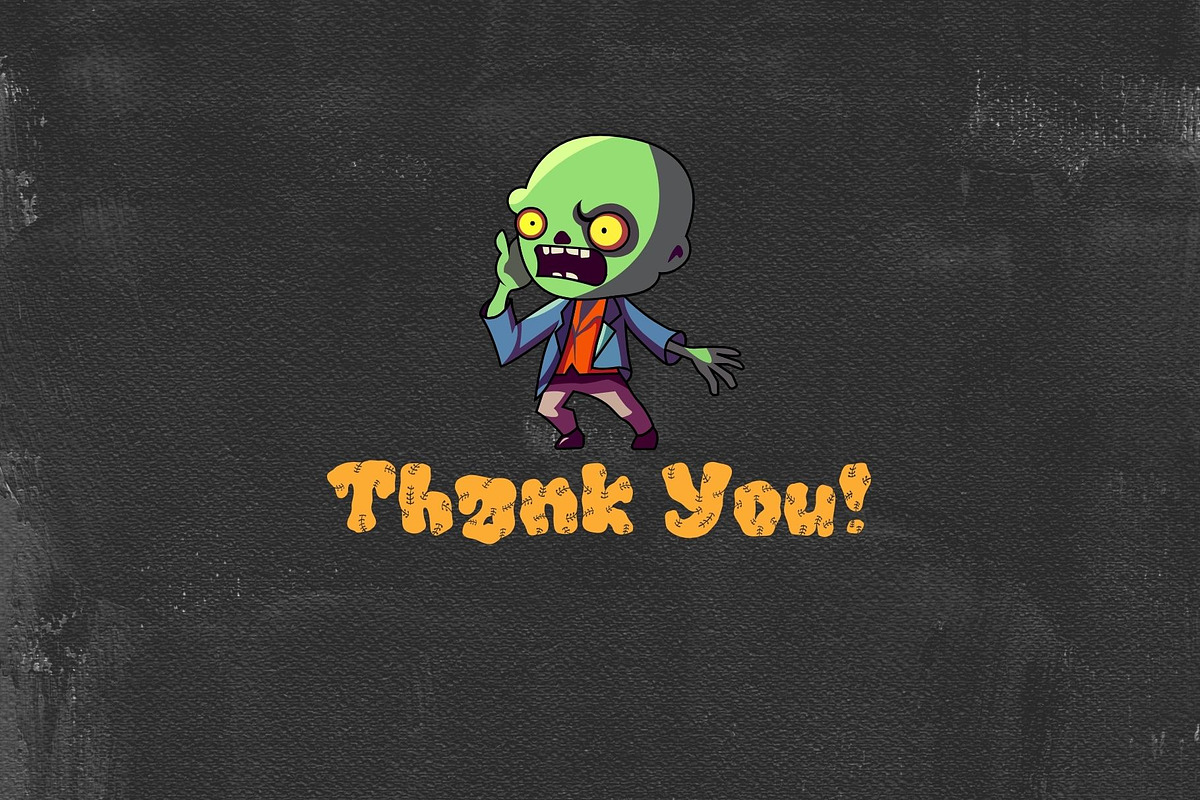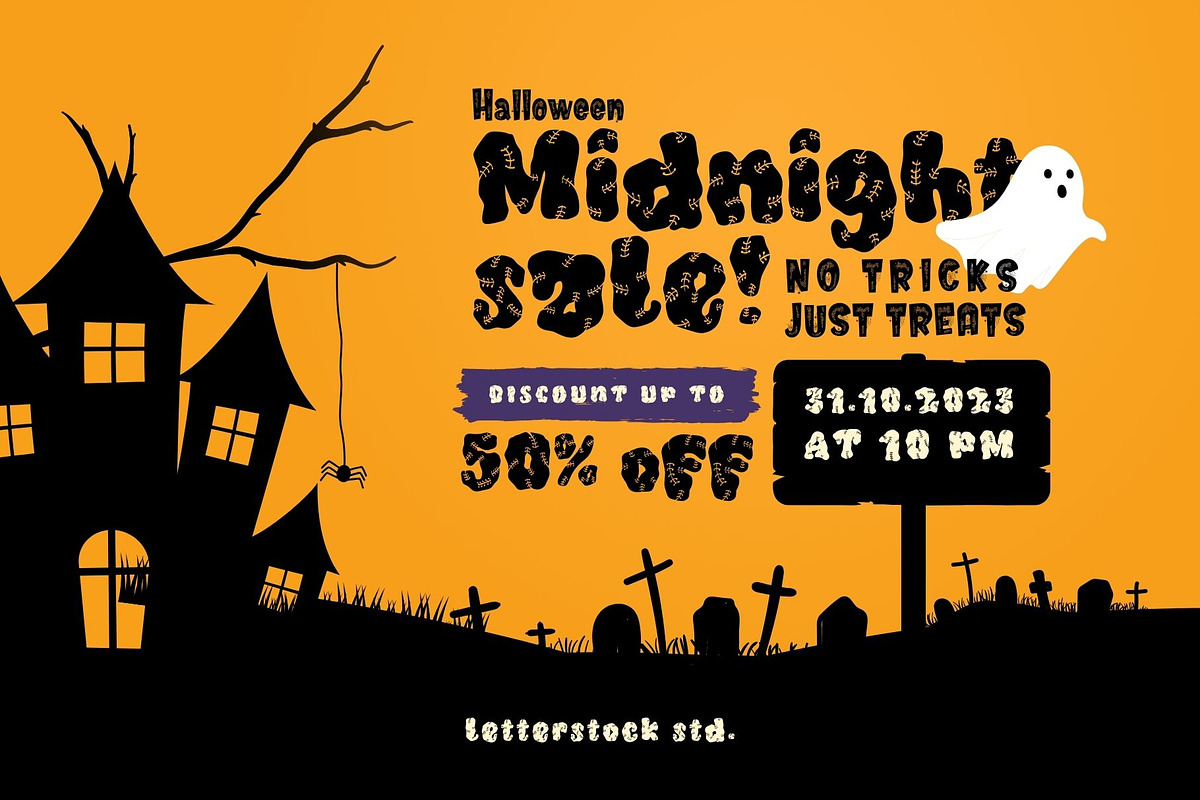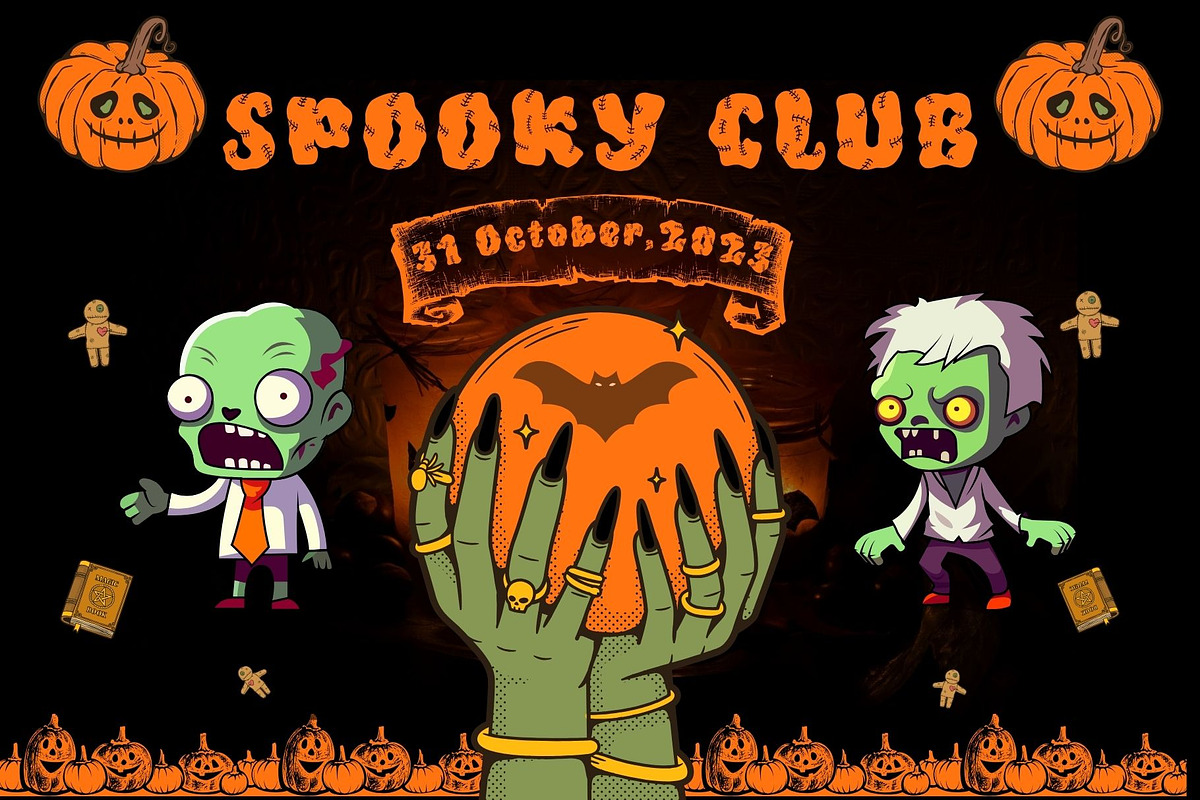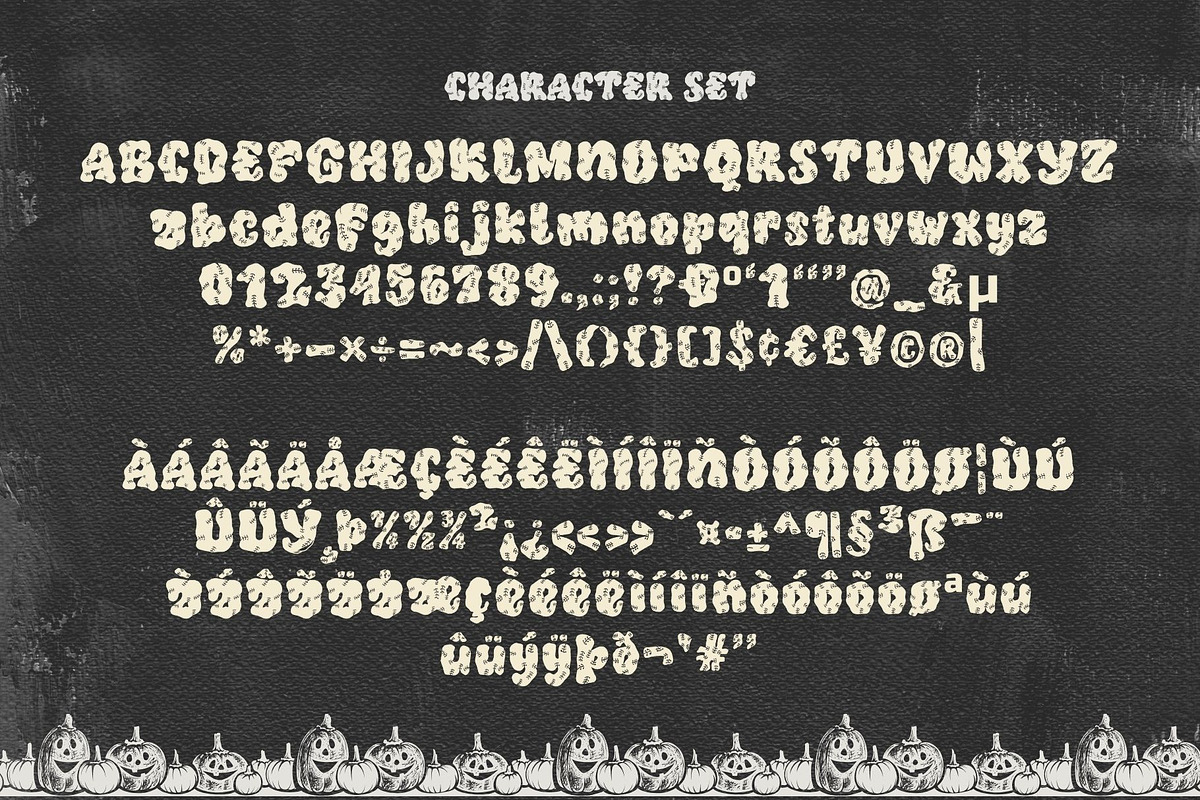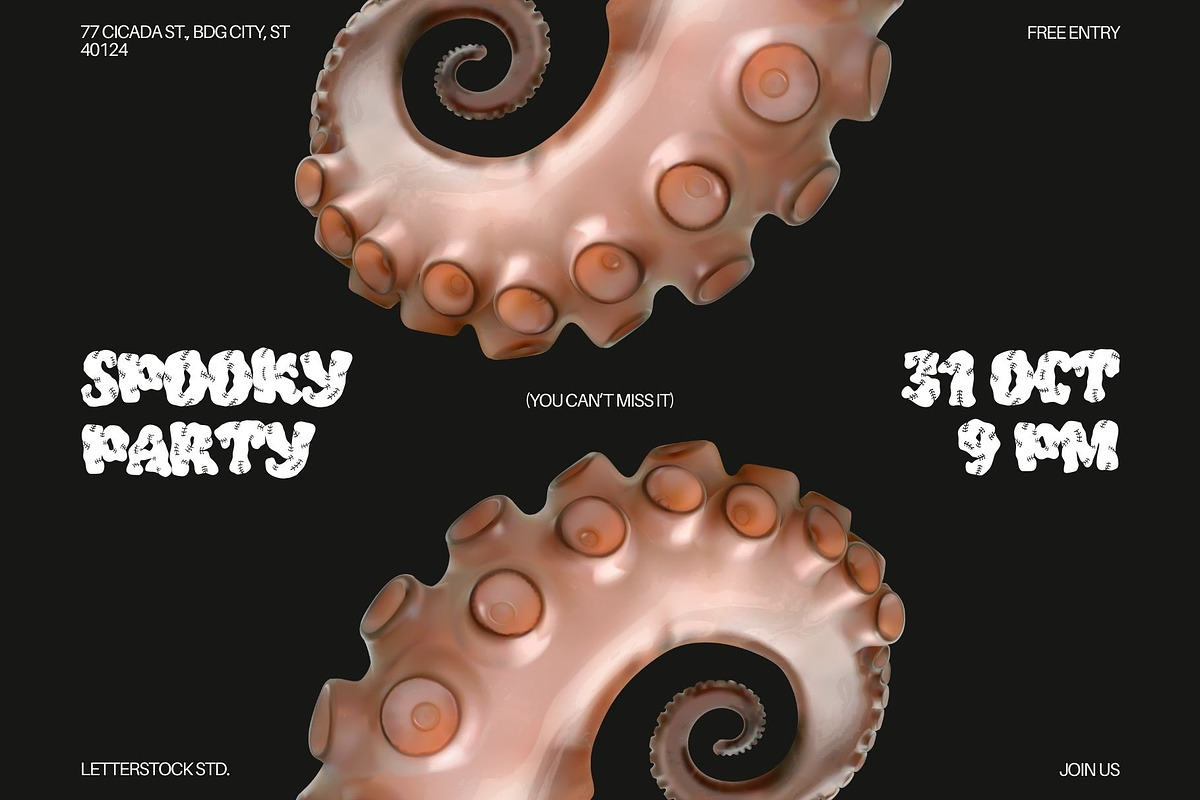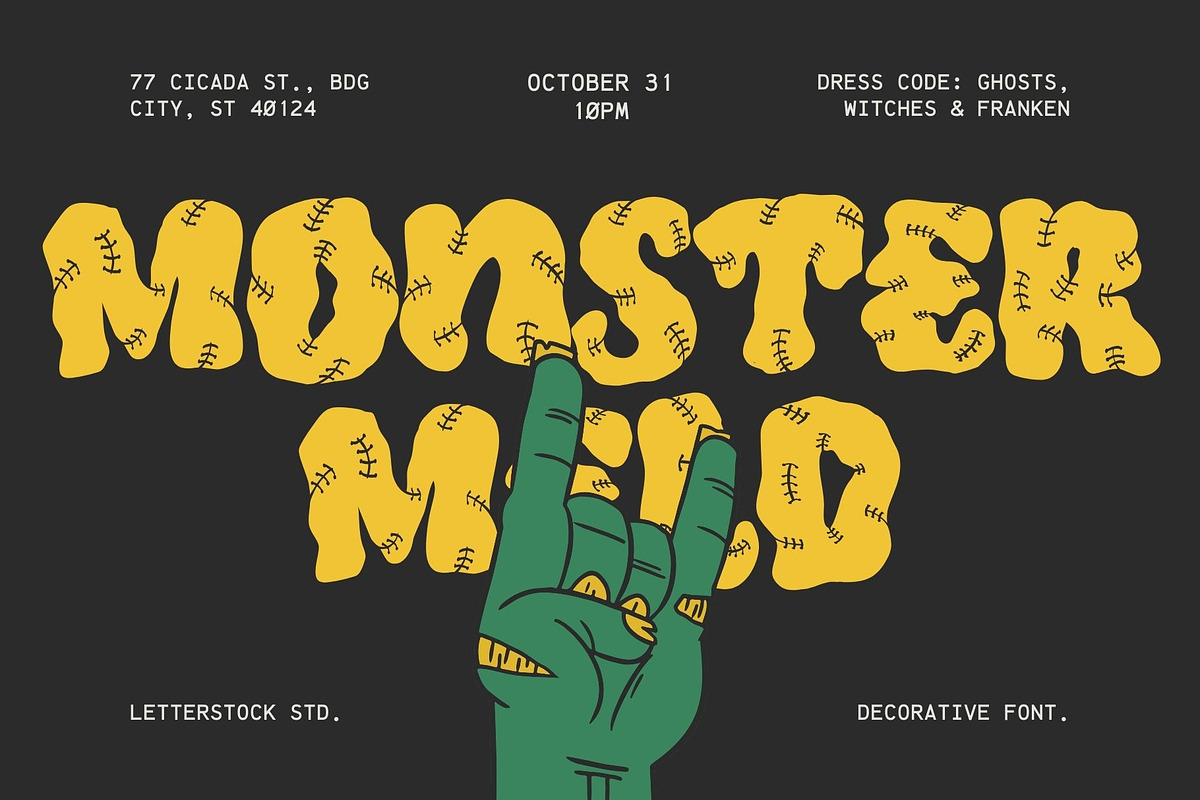
Monstermeld
Introducing “Monstarmeld” – The Frankenstein-Inspired Halloween Font
Unleash monstrous creativity this Halloween with “Monstarmeld,” a spine-tingling font that’s adorned with eerie Frankenstein scars in every glyph. Perfect for crafting chilling Halloween posters, haunting invitations, and hair-raising social media graphics, this font will send shivers down your audience’s spines.
Frankenstein’s Touch: “Monstarmeld” captures the essence of Frankenstein’s scars, adding a unique and terrifying texture to your designs. Eerie Vibes: With every letter, “Monstarmeld” conjures the spine-chilling atmosphere of Halloween, making it the ultimate choice for horror-themed projects.
Why Choose “Monstarmeld”:
Create Halloween posters that are truly bone-chilling. Craft invitations that send shivers down your guests’ spines. Design social media graphics that haunt and captivate your audience.